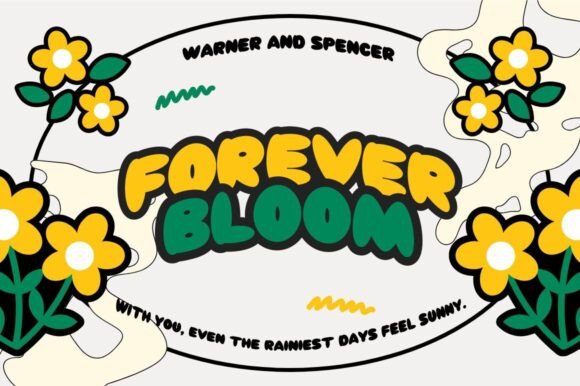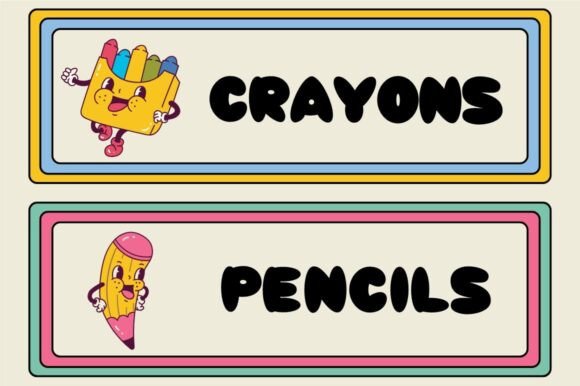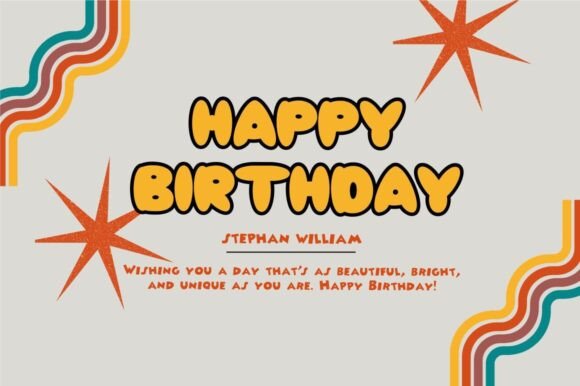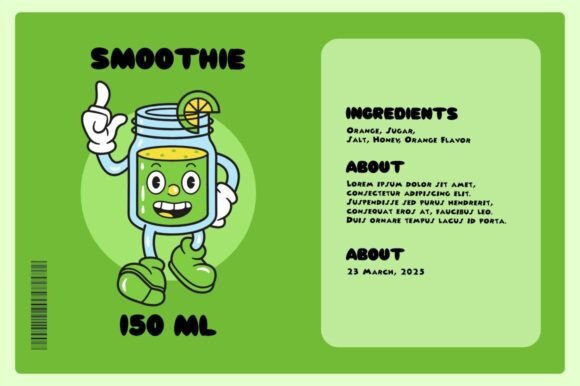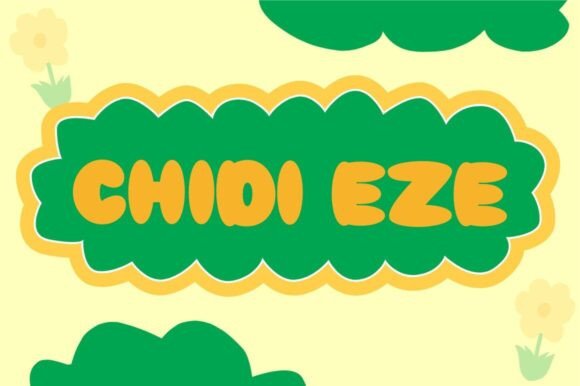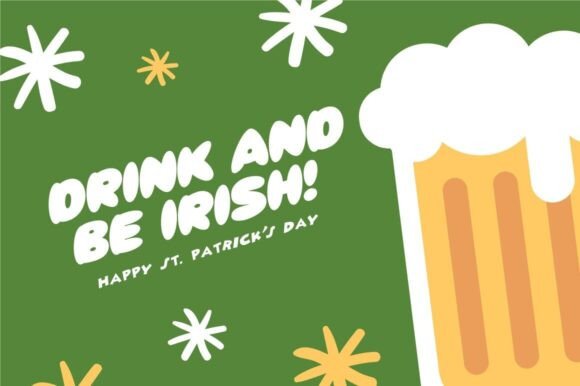
Introduction to Hunni Buba Font
As a designer, you’ve probably experienced that moment when the perfect font makes all the difference in a project. For me, it was the time I stumbled upon a quirky little café that used a handwritten font in its logo – it immediately made me feel welcome and at ease. That’s the magic of the Hunni Buba Font, a charming, handwritten-style typeface that brings a playful and cozy touch to any design.
Whether you’re working on a creative project, crafting a wedding invitation, or developing a logo for a brand, Hunni Buba Font is the perfect design resource to add a personal, whimsical feel to your work. Its soft curves and slightly uneven edges evoke a sense of friendliness and approachability, making it an ideal choice for designers seeking a blend of warmth and authenticity.
With its smooth, organic flow and versatility in both lowercase and uppercase styles, Hunni Buba Font ensures readability while offering a unique character that’s perfect for adding a touch of personality to your designs. And the best part? You can download it for free, ready to use on any transparent background with high-quality results.
Key Features of Hunni Buba Font
- Unique, hand-drawn design suitable for creative projects, adding a personal touch to various mediums.
- Perfect for use in digital and print projects, including logos, graphics, and typography, due to its versatility and unique style.
Honest Review: Hunni Buba Font
As a designer, I’m always on the lookout for high-quality design resources to enhance my creative projects. Recently, I stumbled upon the Hunni Buba Font, which promises a unique and stylish addition to any design. Let’s dive into my honest review of this font.
- ✨ Unique and creative design style that sets it apart from other fonts
- ⚠️ Limited character set, which may not be suitable for complex design projects
- ⚠️ Not ideal for small text sizes due to its bold and decorative style
Overall, I’m impressed with the Hunni Buba Font’s unique design and high-quality graphics. While it may have some limitations, it’s a great addition to any designer’s arsenal, especially for creative projects that require a bold and stylish touch. With its free download option, it’s definitely worth checking out.
Using Hunni Buba Font in Creative Projects
The Hunni Buba Font is ideal for use in various creative projects, including logos, business cards, and social media graphics. It is available for free download and comes in high quality, making it perfect for use in digital design.
Common Use Cases for Hunni Buba Font
The Hunni Buba Font is commonly used in various design projects, including:
- Social media graphics and ads
- Website headers and footers